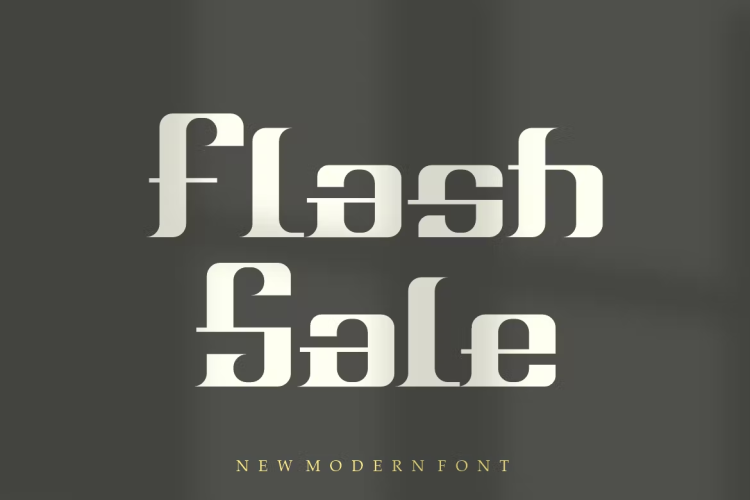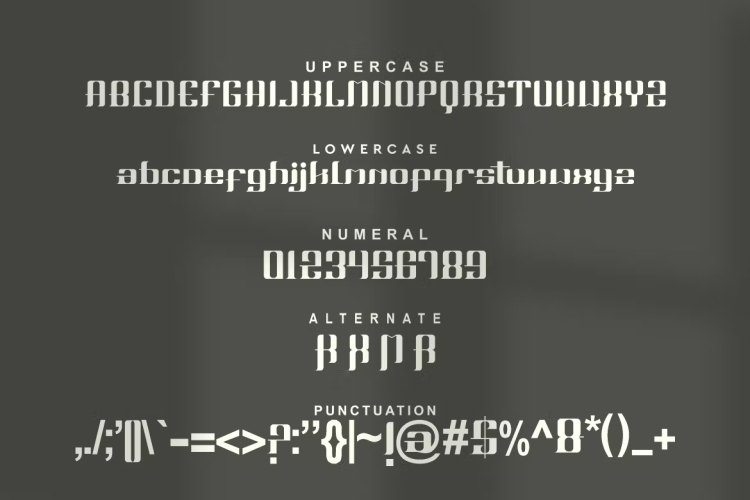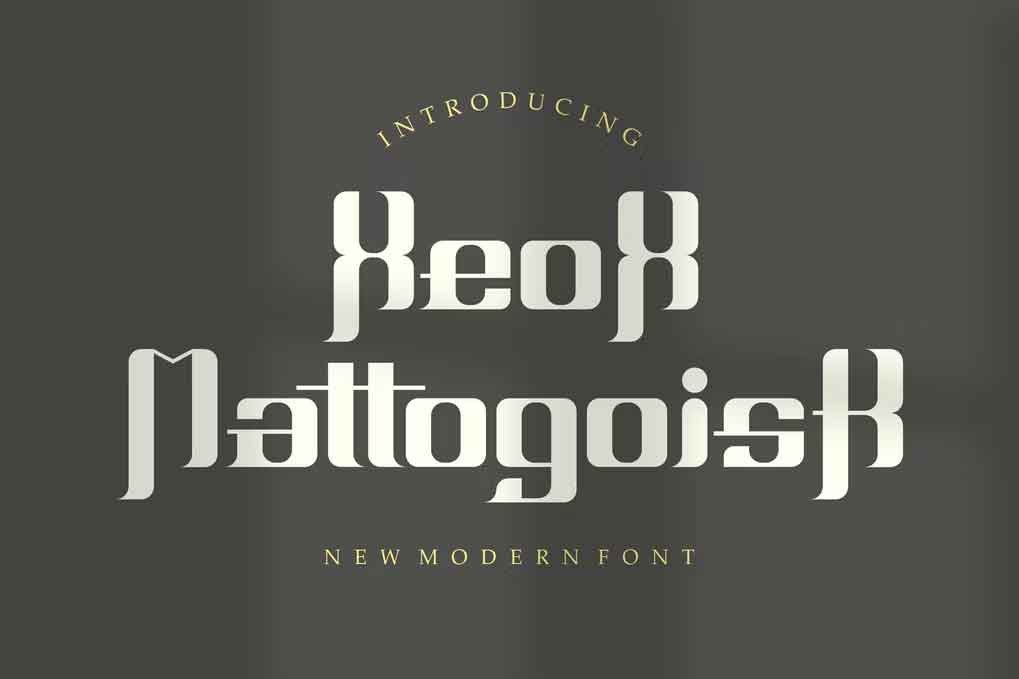
Xeox Mattogoisk Font
Introducing our new product Xeox Mattogoisk Font – Modern Font
Xeox Mattogoisk Font – Modern Font is a bold and authentic display font. The font is suitable for any branding project like logo, t-shirt printing, esport, and many more. outstanding in a wide range of contexts.
Where Xeox Mattogoisk Font works best
Reports, white papers and book interiors hold the eye longer when the text face has real serifs; Xeox Mattogoisk Font keeps that rhythm without looking old-fashioned.
Food, spirits and cosmetics brands lean on serif wordmarks to suggest age and care. Xeox Mattogoisk Font gives that signal at wordmark size.
Set Xeox Mattogoisk Font for the body of an award or a diploma and keep the recipient name in a script; the pairing is what makes a document feel official.
What kind of work does Xeox Mattogoisk Font suit?
It sits in the Serif Fonts group and reads as bold, branding, display, gaming. That makes it a candidate wherever those qualities help: headings, packaging, social graphics and brand work. Set it at the size you plan to use before deciding.